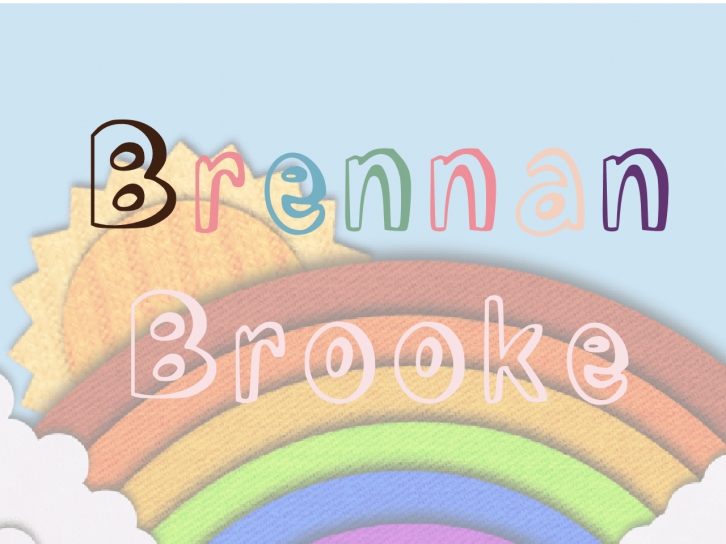
font design in the form of writing It is a letter in the style of a font that has different characteristics that you can use in your letter, design greeting cards, wedding cards, etc. Make your letters look different.